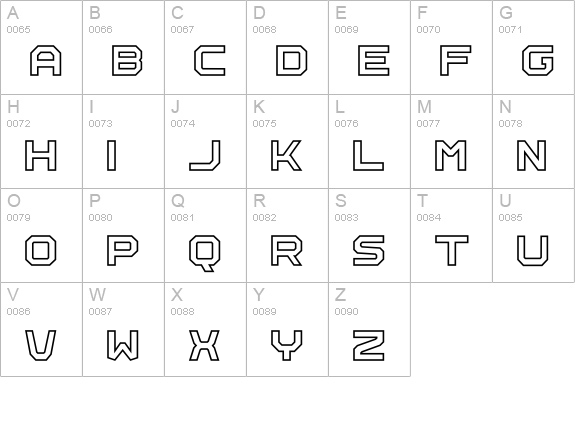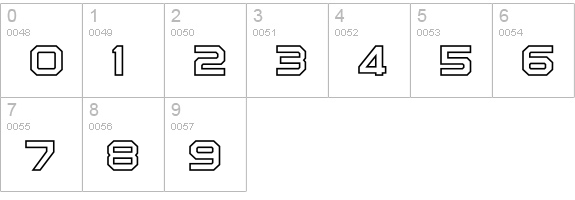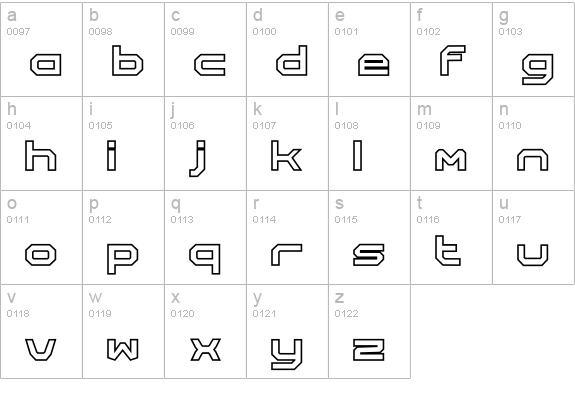
Rally-Outline Font Details
Introducing Rally-Outline, a stunning font that will take your designs to new heights. With its clean lines and bold, dramatic strokes, Rally-Outline captures attention and makes a statement. This font is perfect for modern and contemporary designs, adding a touch of sophistication and elegance. But what sets Rally-Outline apart is that it is not only visually captivating, but it is also free. Yes, you read that right! This incredible font can be downloaded for free at FontsMarket.com. Whether you're a professional designer looking for a font to elevate your work or simply a creative individual searching for a stylish font for personal projects, Rally-Outline is the perfect choice. Featuring a wide range of characters and glyphs, Rally-Outline offers versatility and flexibility in your designs. Its unique outline style adds depth and dimension, making each letter stand out on its own. From logos and branding materials to posters and social media graphics, this font is a game-changer. Not only is Rally-Outline visually striking, but it is also incredibly easy to use. With its user-friendly interface and compatibility with various design software, incorporating Rally-Outline into your projects is a breeze. Whether you're a beginner or an experienced designer, this font will make your creative process seamless and enjoyable. So why wait? Don't miss out on this incredible opportunity to enhance your designs with Rally-Outline. Download it for free today at FontsMarket.com and let your creativity soar. With Rally-Outline in your toolkit, the possibilities are endless. Get ready to make a lasting impression with this remarkable font.